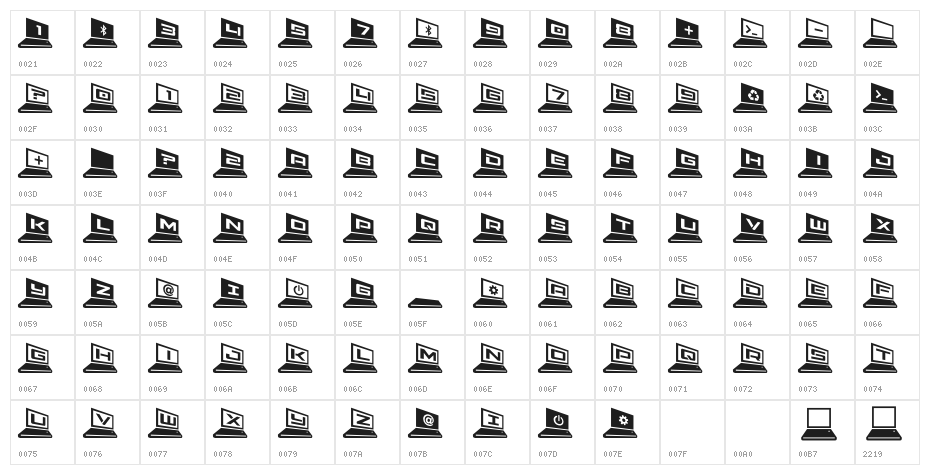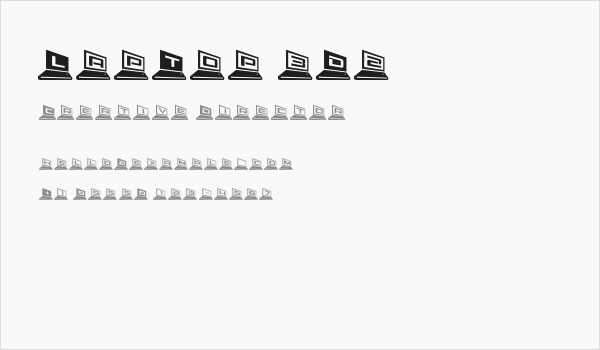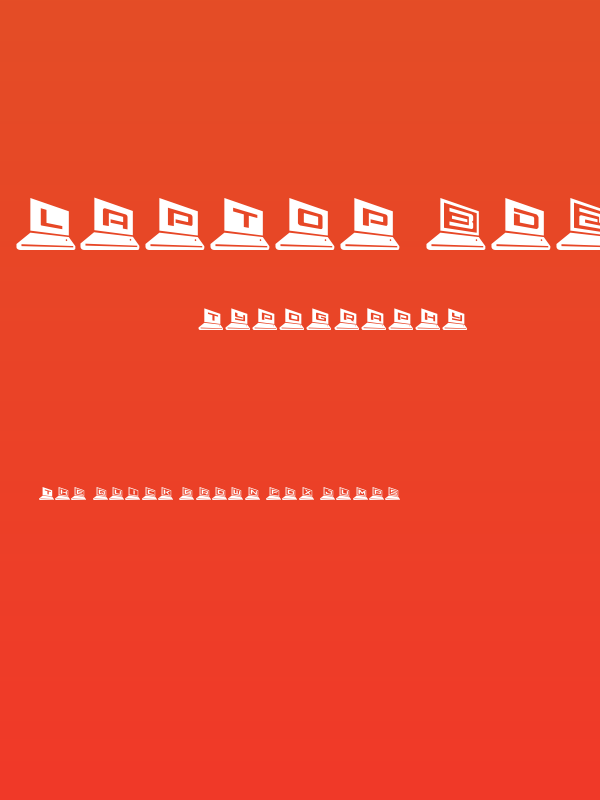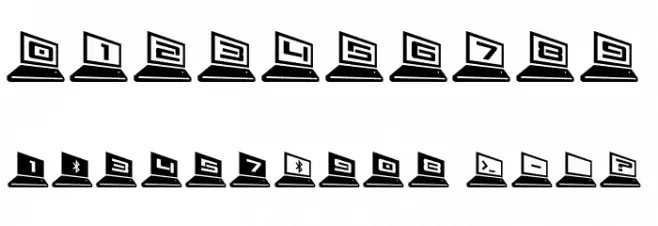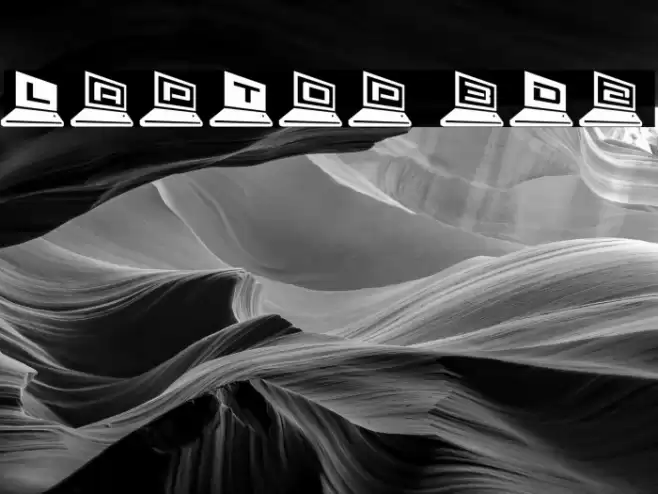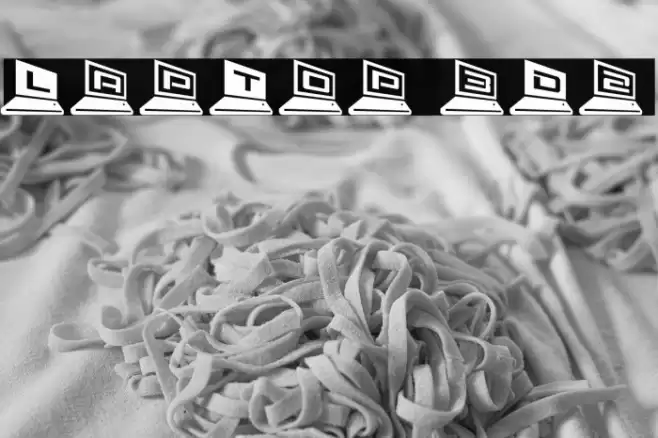
LapTop 3D2 Font
LapTop 3D2 Description
This font features a unique and modern design where each character is embedded within a stylized laptop icon. The letters and numbers are bold and geometric, with a strong emphasis on straight lines and sharp angles. The overall aesthetic is tech-inspired, making it ideal for digital or technology-related projects. The characters are uniformly spaced, ensuring readability despite the decorative elements. The font's distinct style is both eye-catching and functional, suitable for creating a futuristic or digital atmosphere in design projects.